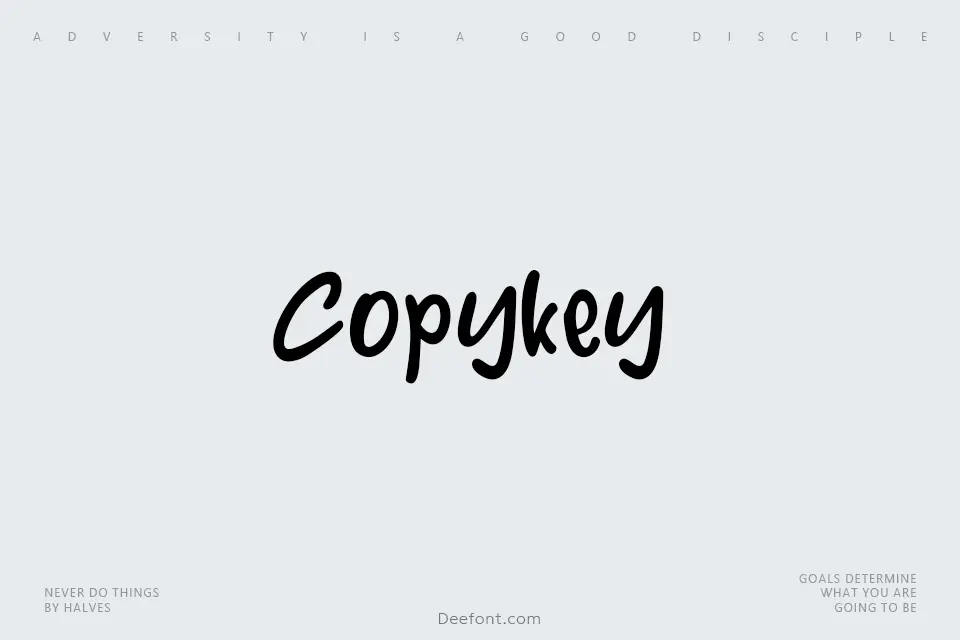
Copykey Font
Copykey Font is a vibrant handwritten-style script typeface designed by Khurasan that captures the organic flow of natural penmanship. Featuring flowing curves and slightly irregular letterforms, this playful font delivers a casual yet expressive character perfect for modern creative work. The semi-bold weight combined with natural letterform variations creates dynamic visual impact ideal for greeting cards, invitations, branding projects, logo design, and social media graphics. Its whimsical personality and authentic hand-lettered aesthetic make it an excellent choice for posters, product packaging, event designs, and any project requiring a personal, friendly touch without sacrificing visual distinction.